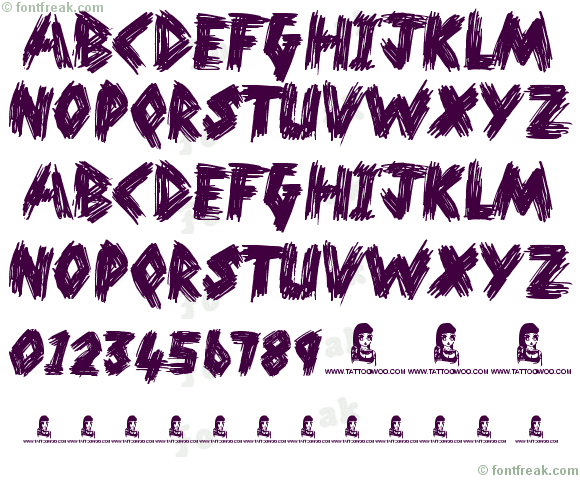
No Messin
No Messin, designed by Jonathan S. Harris, is a striking display font that falls into the decorative category. Its unique, hand-drawn aesthetic is characterized by uneven stroke weights and a playful, rugged texture that mimics the look of brush strokes or graffiti. The letters are bold and slightly irregular, giving the font a dynamic quality that captures attention. The spacing is intentionally varied, enhancing its organic feel and making it ideal for designs that aim to convey a sense of energy and spontaneity.
This font is particularly well-suited for creative projects such as movie posters, where a bold statement is required, or for restaurant menus that wish to convey a casual, welcoming vibe. Additionally, it can be effectively used in promotional materials for events like music festivals or art shows, where a creative flair is essential. Graphic designers and content creators will find the No Messin font free download appealing for its versatility in various applications, from digital marketing materials to social media graphics.
The target audience for this font includes graphic designers looking to add a unique touch to their projects, small business owners wanting to stand out with distinctive branding, and content creators seeking to engage their audience with a fun, eye-catching style. No Messin stands out among decorative fonts due to its ability to blend playfulness with artistic expression. It allows for creative freedom while maintaining legibility, making it a fantastic choice for anyone seeking to make a memorable impression. With its distinctive character and versatile applications, No Messin is sure to elevate any design project.